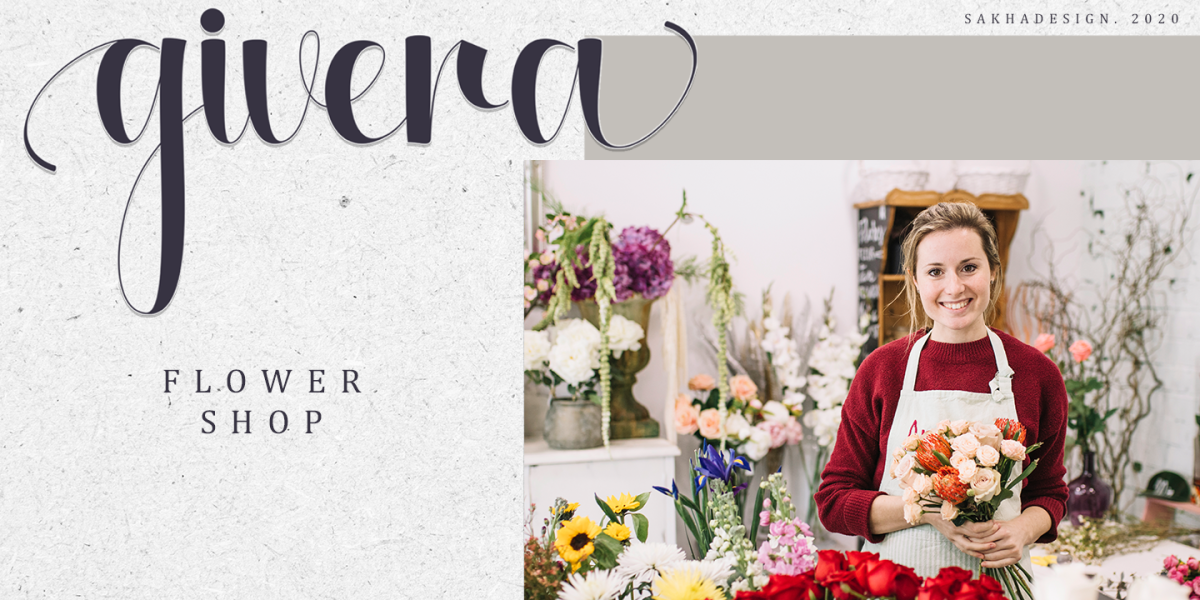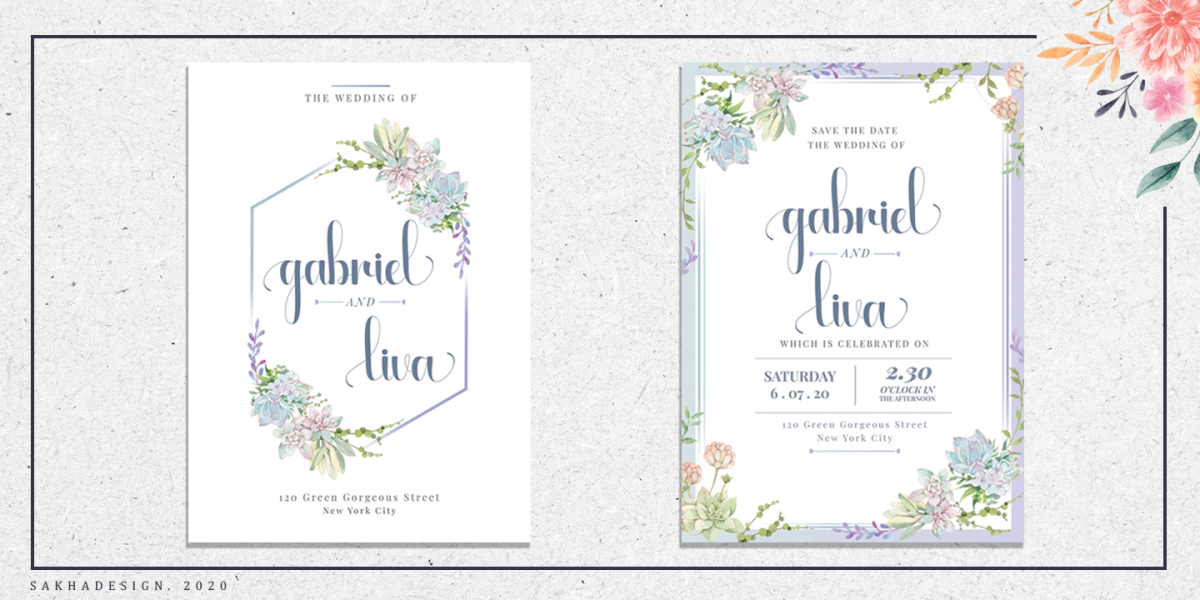
Ageitha Font
Ageitha is a modern and luxurious handwritten font. Elegant and stylish, this font will become your top choice in no time. This font is PUA encoded which means you can access all of the glyphs and swashes with ease!
Alif Ryan Zulfikar
Sakha Design